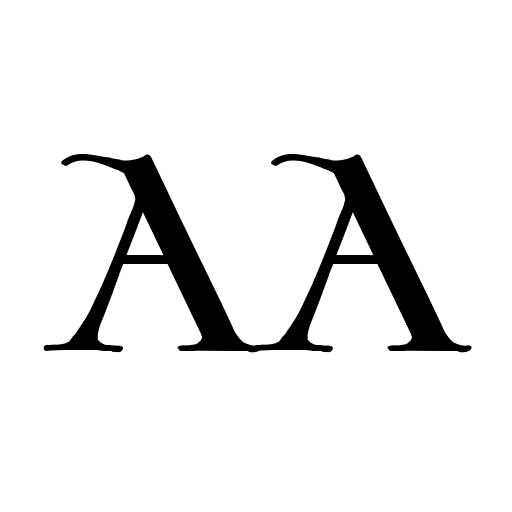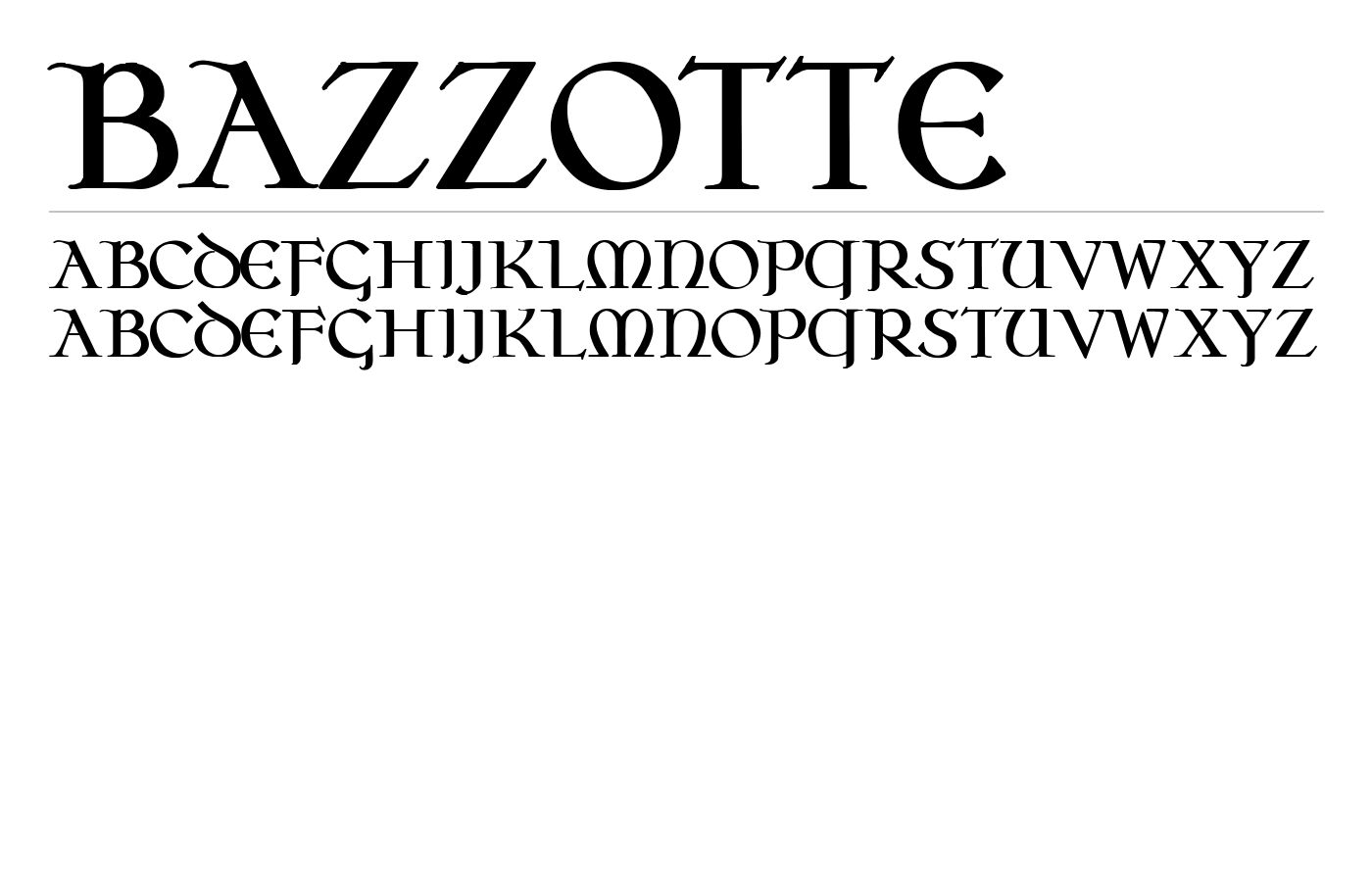
Bazzotte is a distinctive serif font with a vintage, calligraphic flair, featuring elegant strokes and sharply pointed serifs that convey a refined yet slightly whimsical personality. Its balanced contrast and unique letter shapes make it ideal for creating standout headlines, logos, and branding materials that require a touch of classic sophistication with a modern twist. This font works wonderfully for editorial design, fashion branding, and any project seeking to evoke elegance and artistic craftsmanship.
Bazzotte Font
About Bazzotte Font
| Font family | Bazzotte Font |